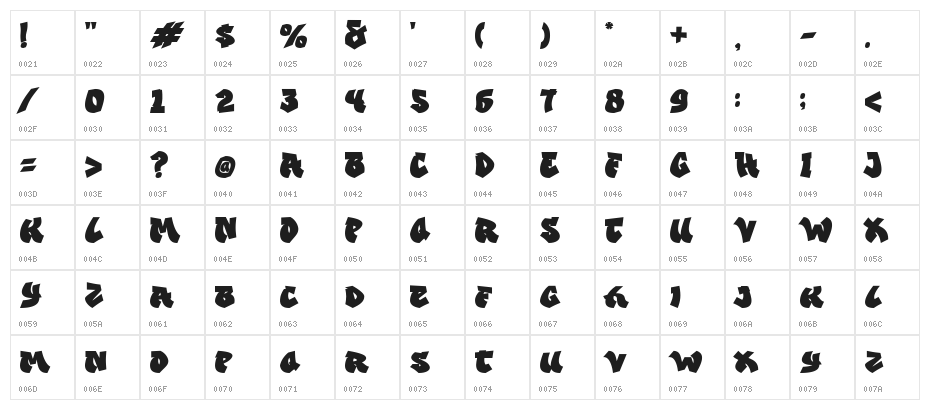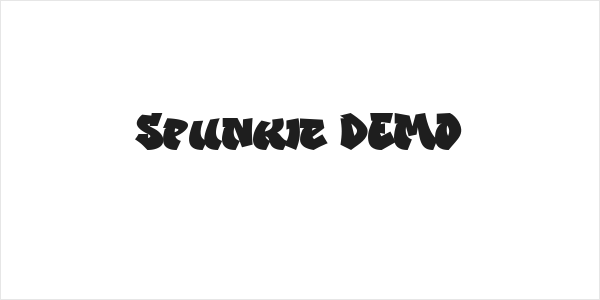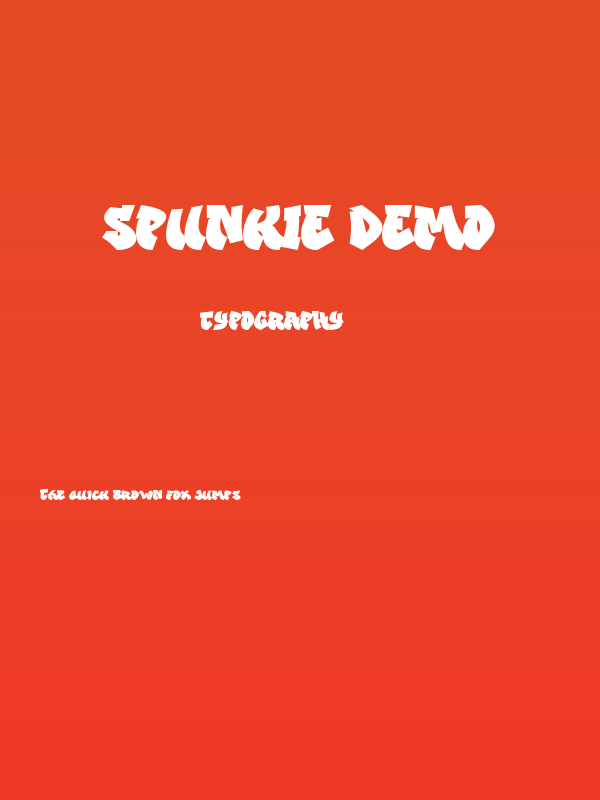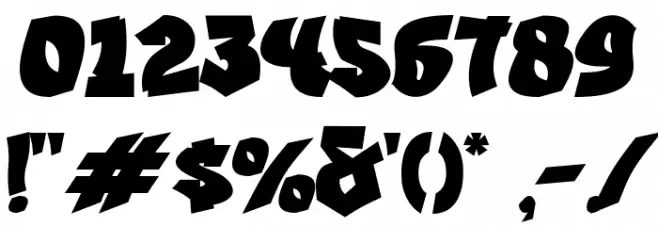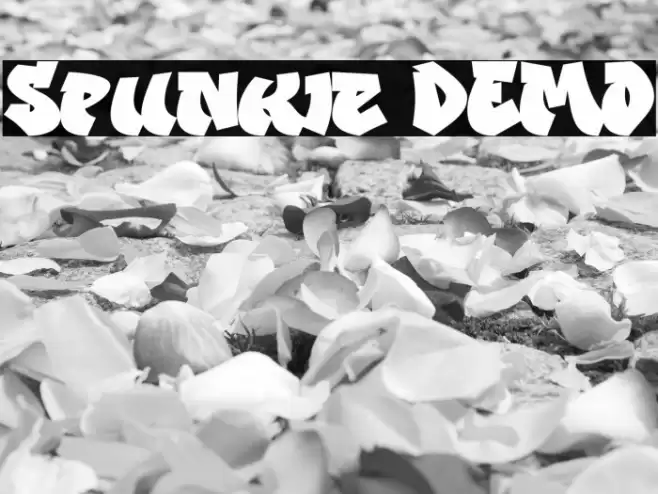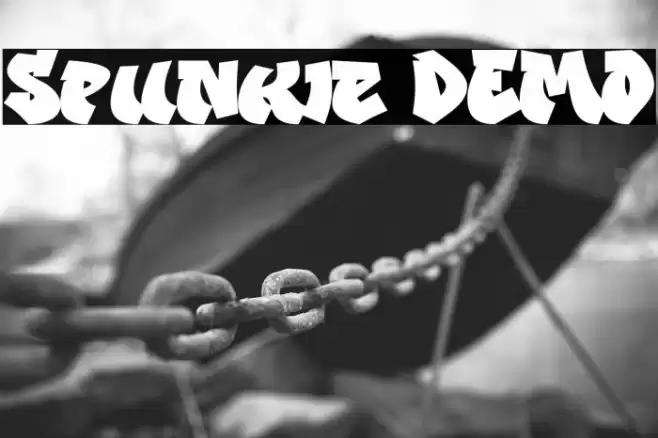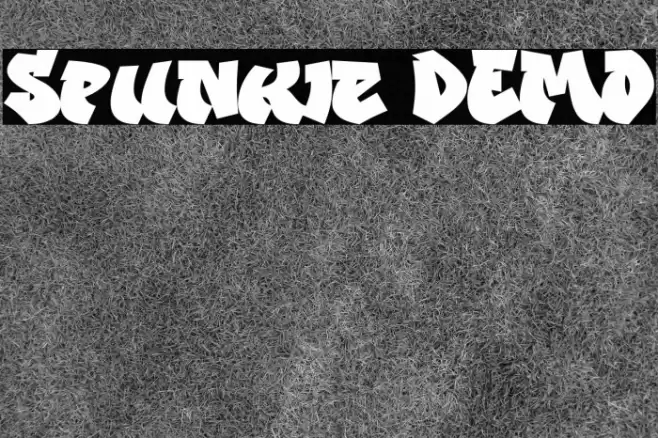
Spunkie DEMO Font
Spunkie DEMO Description
| Overall Style | Decorative, Urban, Graffiti, Playful |
| Use Case | Headlines, Logos, Posters, Branding |
| Proposed Projects | Posters, album covers, urban branding, event flyers, streetwear logos, youth-oriented campaigns. |